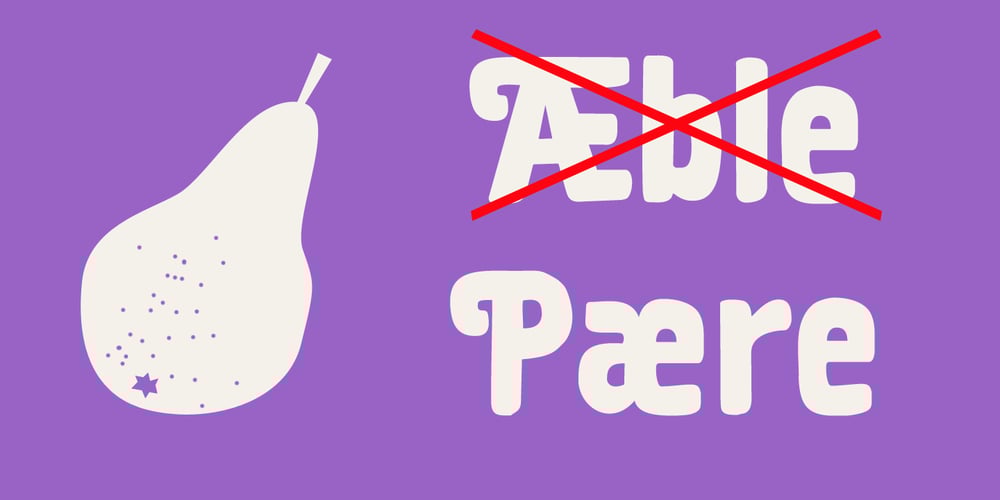
Hjem Font Family was designed by David Kerkhoff and published by Hanoded. Hjem contains 2 styles and family package options. Hjem, in Danish, means ‘at home’ or ‘home’. I made this font ‘hjem’, so I thought the name was quite appropriate! Hjem is a rounded, handmade display font that comes with extensive language support and cute swashes. Use this versatile font for your packaging designs, book covers, party posters or whatever you want. I am sure this font will feel right hjem!